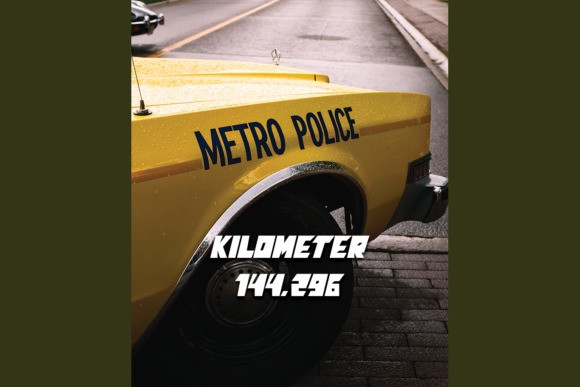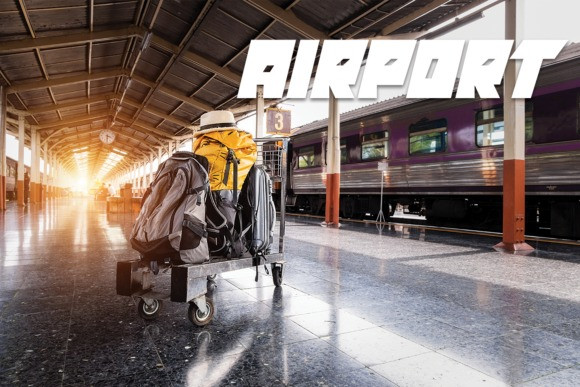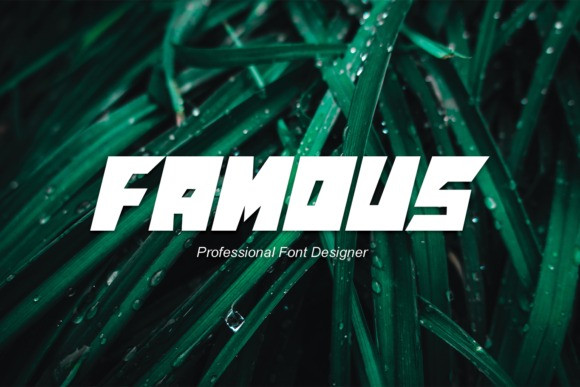
Famous Font
Famous Display Font is a cool and bold display font. Use this font for your designs and explore its endless possibilities. Add it confidently to your projects, and you will love the results.